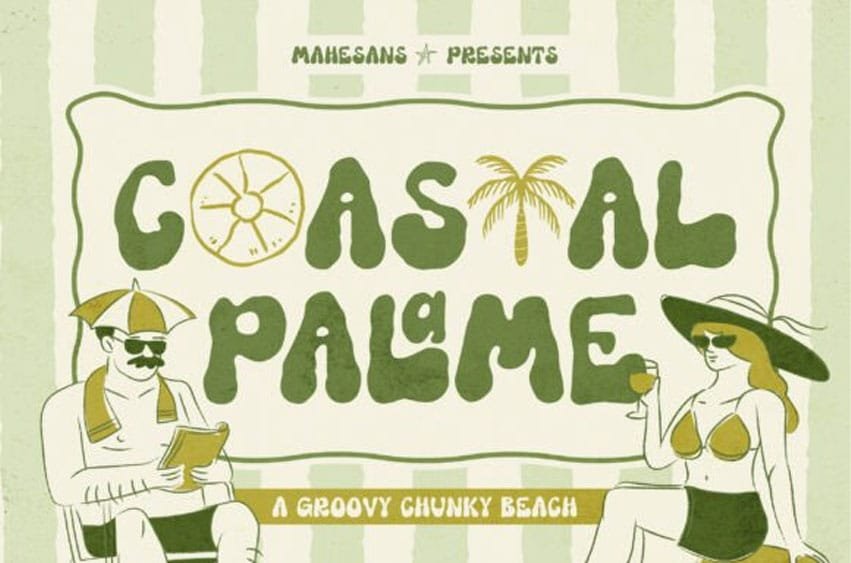
Coastal Palame Font is a groovy chunky display font inspired by sunny beaches, tropical holidays, retro surf culture, and carefree summer vibes. With its bold, organic shapes and playful hand-drawn character, this typeface instantly adds a fun and nostalgic personality to any design.
Its chunky letterforms make it perfect for eye-catching headlines, while the quirky and slightly wobbly shapes bring a handmade feel that works beautifully with vintage and contemporary aesthetics.